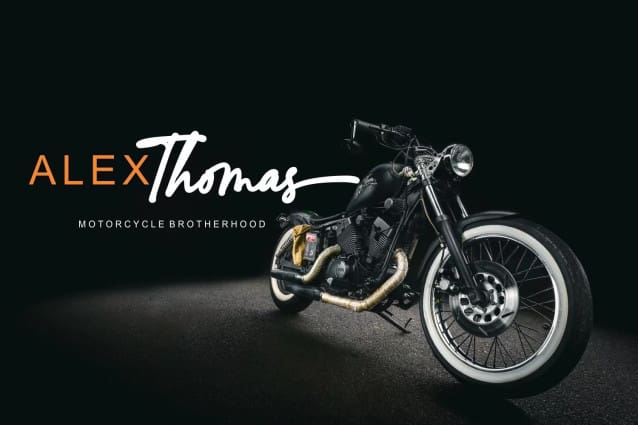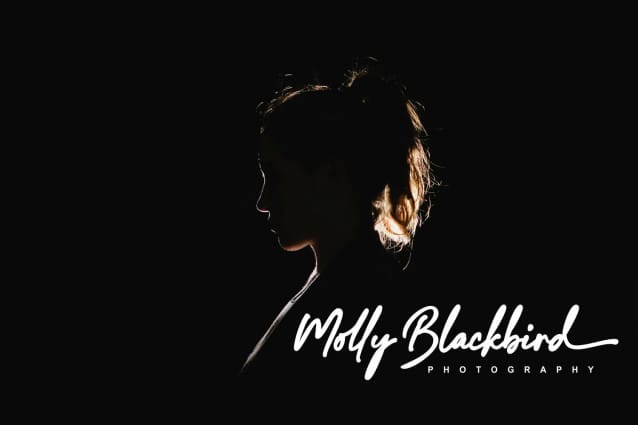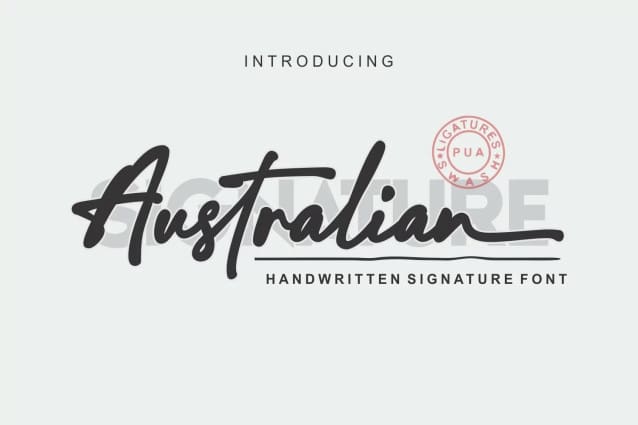
Australian Signature Font
Australian Signature Font is a natural handwritten font. It looks elegant and classy for awesome project. Perfect for branding projects, logo, wedding designs, social media posts, advertisements, product packaging, product designs, label, photography, watermark, invitation, stationery and any projects that need handwriting taste.